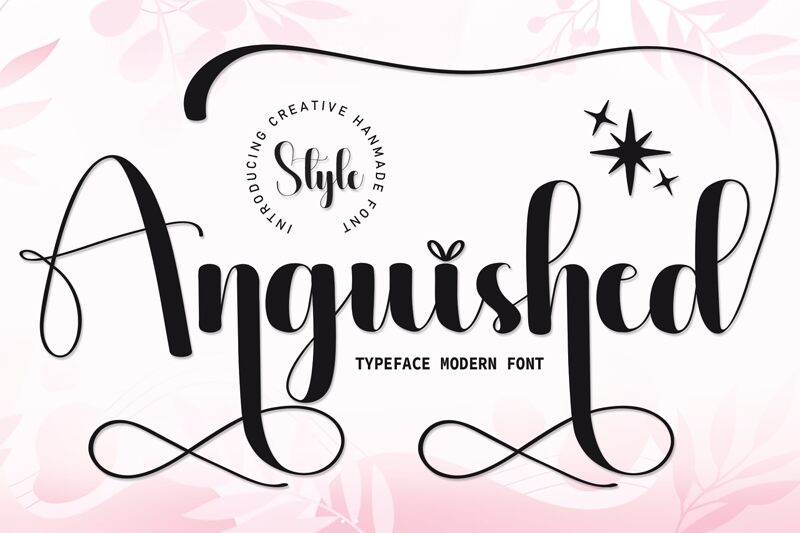
Anguished
Anguished font, designed in a calligraphy style by Scratchones, delights with elegant flowing lines and decorative flourishes. Playful loops and curves add a romantic flair to Anguished's modern script for an expressive charm suitable for both casual and formal settings. Use this free calligraphy font to enhance any design project that needs a charming authentic touch.
Anguished can be used for wedding invitations, certificates, postcards, badges, greeting cards, logos or branding projects. It is ideal for product packaging design or presenting magazine covers in their most stylish form! Website headers or any typographic project will find Anguished an excellent option as well.